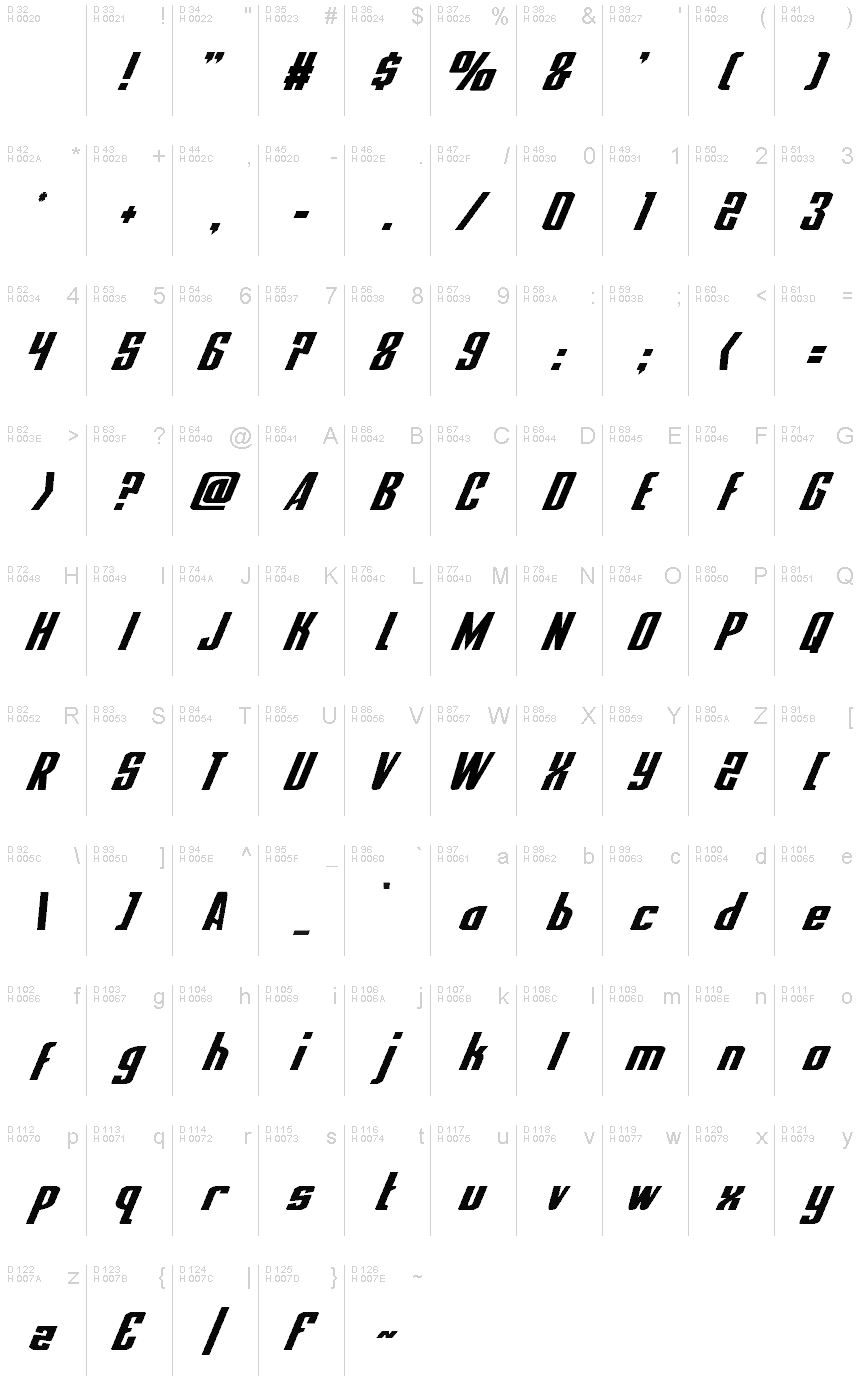
National Express Condensed Italic
National Express Condensed Italic is a bold, dynamic font that exudes a sense of speed and modernity. Designed by Daniel Zadorozny, this display font boasts a striking techno aesthetic, with its condensed letterforms and bold, italicized curves conveying a sense of urgency and power. The font's unique personality lends itself well to a variety of applications, from eye-catching logos and headlines to impactful branding and packaging design.
Its versatility and distinctive style make National Express Condensed Italic a compelling choice for designers seeking to create a strong, memorable visual impact.